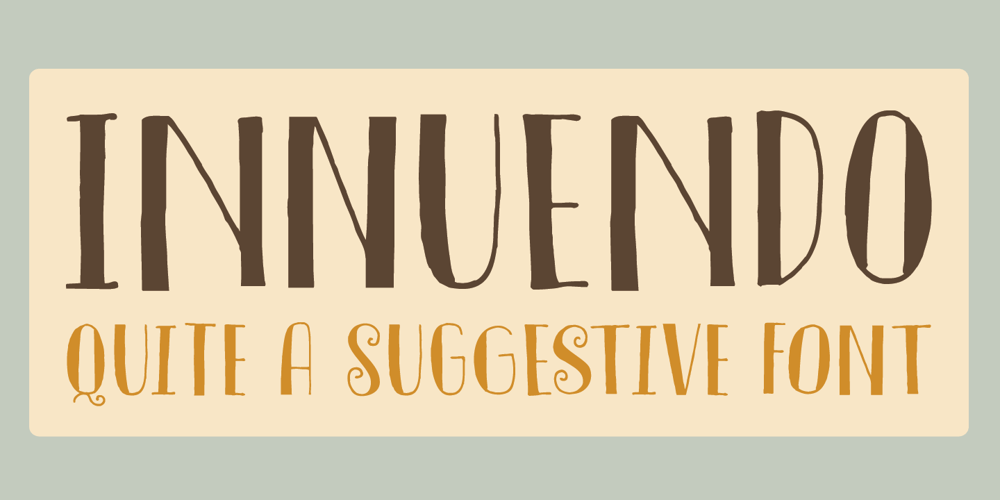
Innuendo
Innuendo font
Innuendo Font Family was designed by David Kerkhoff and published by Hanoded. Innuendo contains 2 styles and family package options. Innuendo, despite its name, is a straightforward font. It is an all caps, hand-drawn typeface with an elegant look and some cheeky curls. Upper and lower case differ and like to mingle. Comes with a bagful of diacritics.